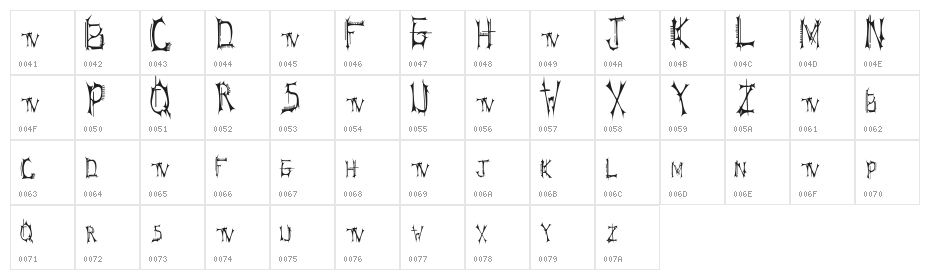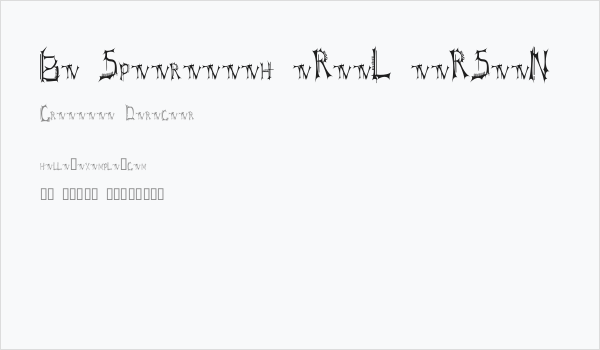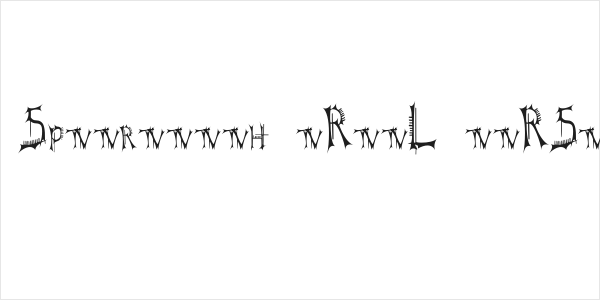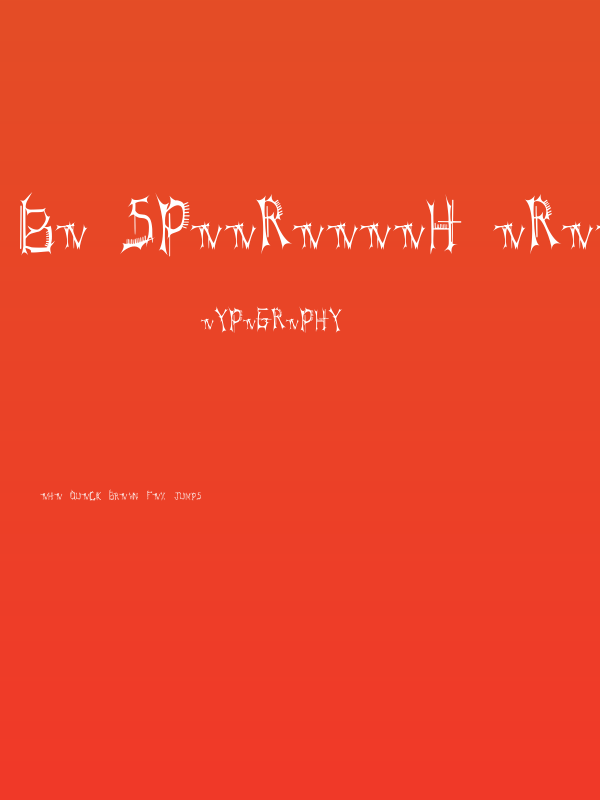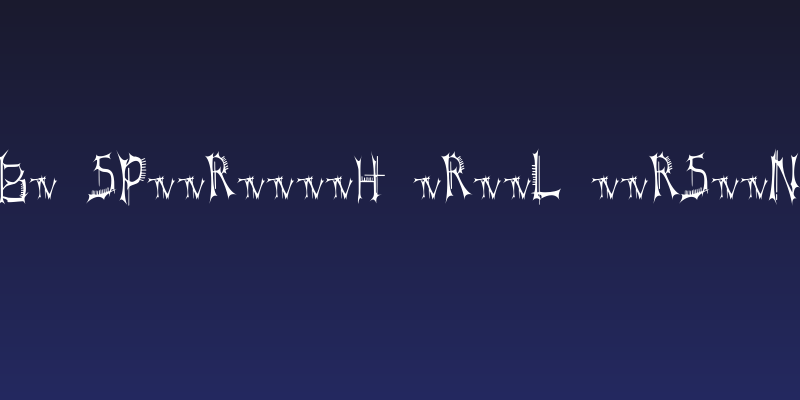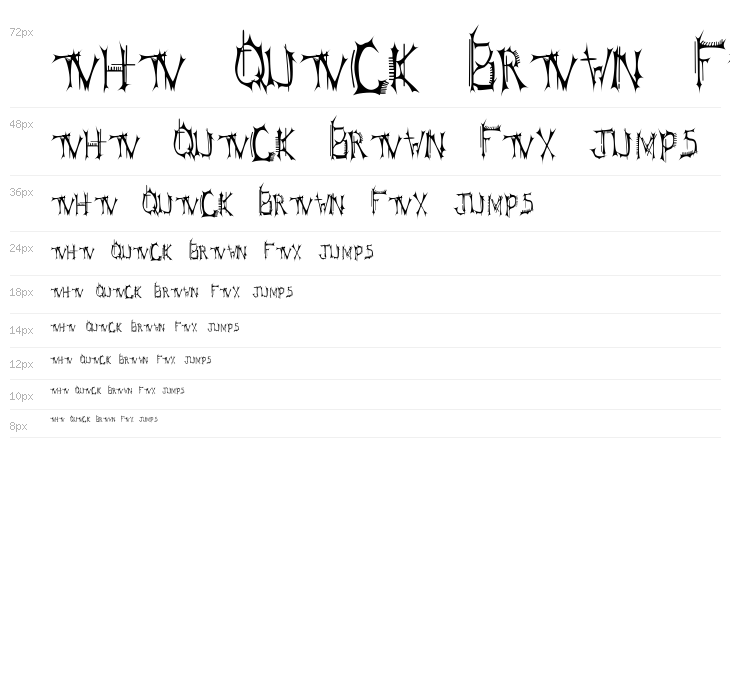
BT Speartooth TRIAL VERSION Font
BT Speartooth TRIAL VERSION Description
This font features a highly decorative and edgy design, characterized by sharp, thorn-like extensions and jagged edges that give it a fierce, aggressive appearance. The letters are bold and striking, with a unique style that combines elements of gothic and tribal art. Each character is intricately detailed, making it stand out with a sense of movement and intensity. The font's distinctive look is ideal for projects that require a dramatic and impactful visual statement, such as band logos, horror-themed graphics, or edgy branding materials. Its unconventional style may not be suitable for body text but excels in capturing attention in headlines or titles.
| Proposed Projects | Ideal for band logos, horror-themed graphics, edgy branding, and dramatic headlines. |